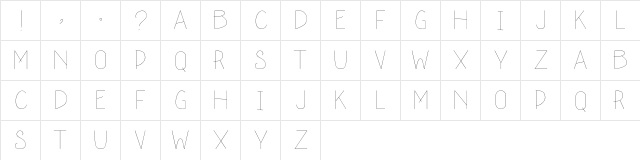
schoolah _thin
Design Context for schoolah Typeface
schoolah is a composed and adaptable typeface that performs quietly and consistently across a wide range of design contexts. The delicate stroke weight brings airiness and refinement to layouts.